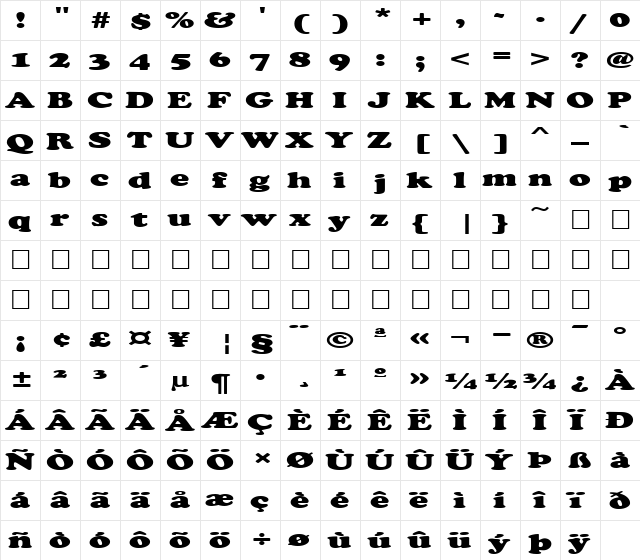
FZ ROMAN 4 EX Extra Heavy
Design Context for FZ ROMAN 4 EX Typeface
FZ ROMAN 4 EX is a composed and adaptable typeface that performs quietly and consistently across a wide range of design contexts.